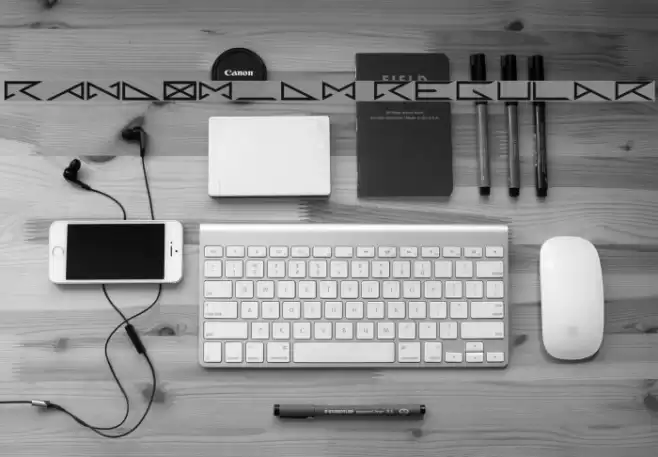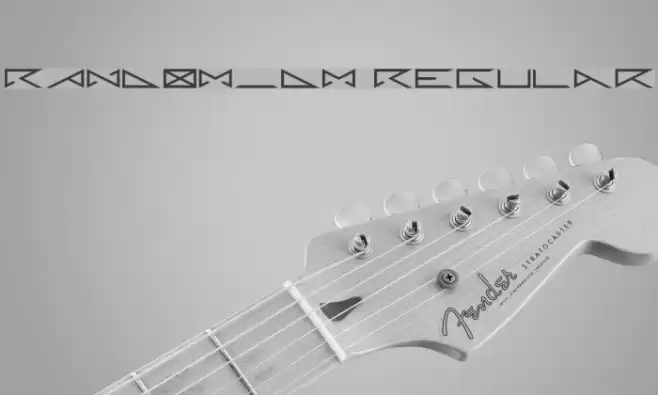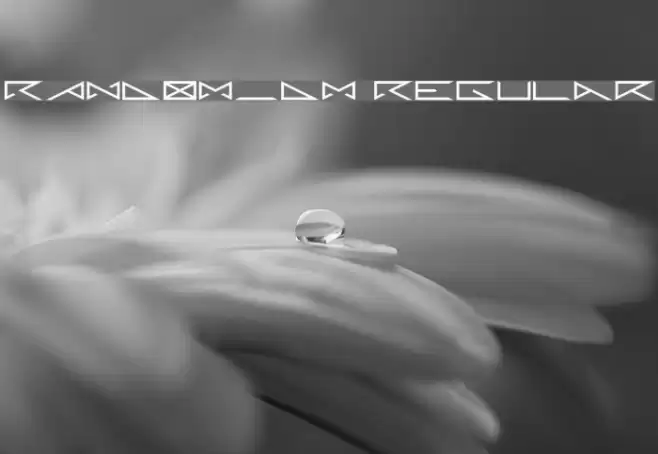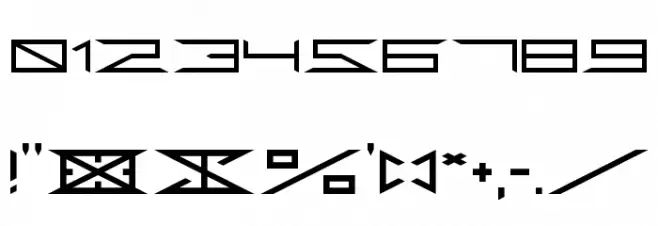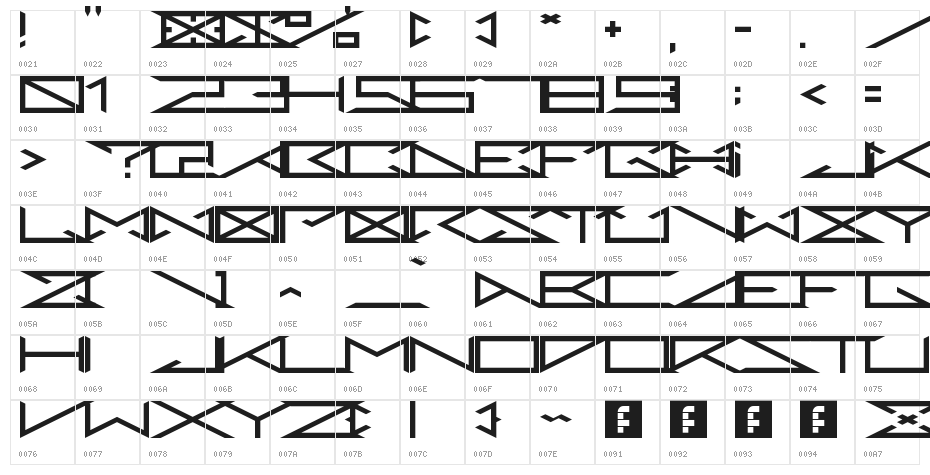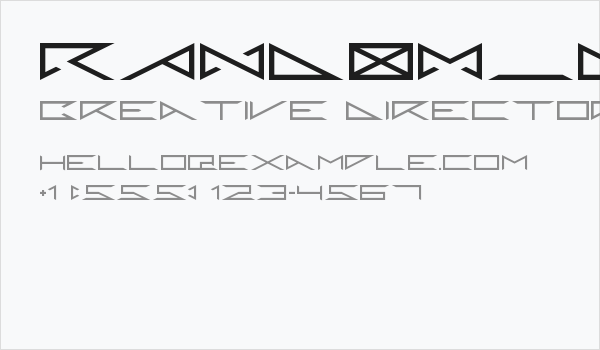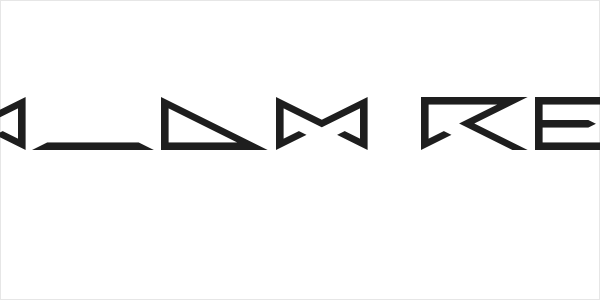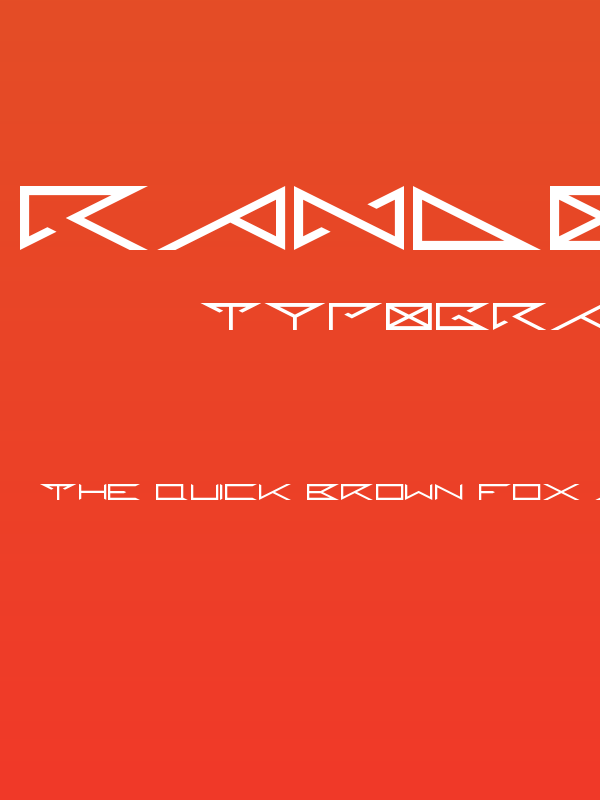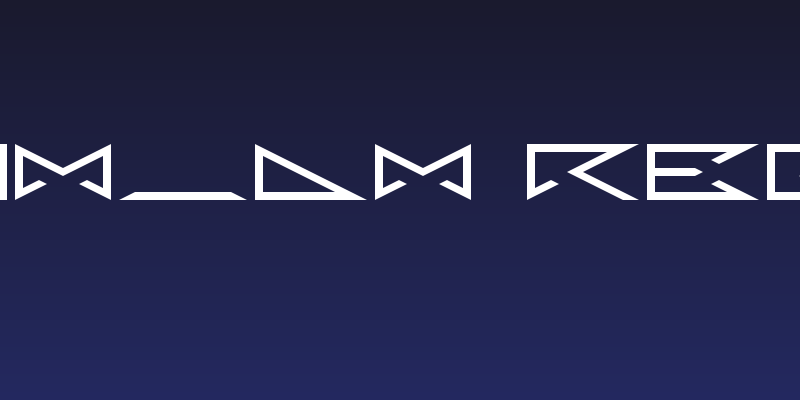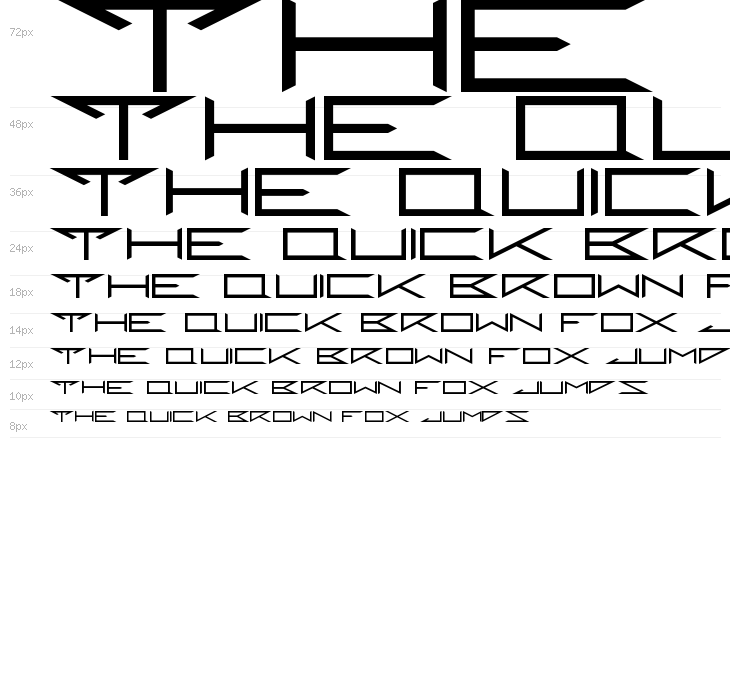
RANDOM_DM Regular Font
RANDOM_DM Regular Description
This font features a highly geometric and angular design, characterized by sharp edges and a futuristic aesthetic. Each character is constructed with a series of straight lines and acute angles, giving it a dynamic and edgy appearance. The uppercase and lowercase letters maintain a consistent style, with a focus on symmetry and precision. The numbers and special characters follow the same design principles, ensuring a cohesive look across all glyphs. This font's unique style makes it stand out, ideal for projects that require a modern and unconventional typeface.
A geometric and angular font with a futuristic and edgy design from Sci-fi fonts.
- Proposed Projects: Ideal for sci-fi themed projects, video game titles, tech branding, and modern posters.
- Overall Style: Futuristic